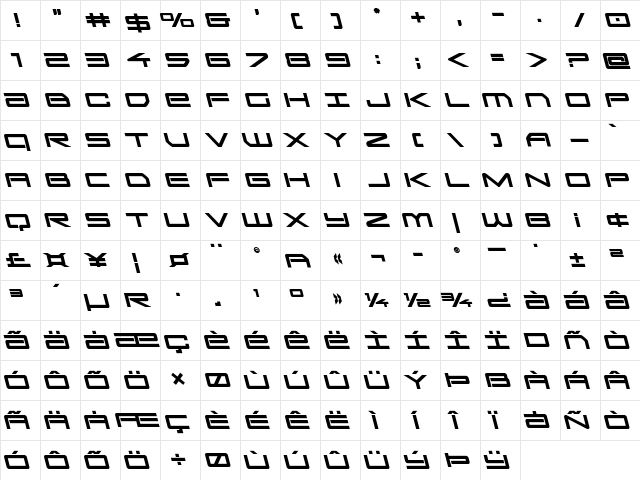
Sky Ridge Bold Leftalic Regular Font Preview
Design Context for Sky Ridge Bold Leftalic Typeface
Sky Ridge Bold Leftalic takes a measured approach to typography — its balanced proportions and neutral character make it a reliable workhorse for both digital and print work. Its italic angle brings a sense of urgency and motion to the letterforms. Its bold stroke weight gives it real presence on the page.
Pro Tip: Try Sky Ridge Bold Leftalic for annotation and caption copy alongside an upright companion — the contrast in angle creates a dynamic but ordered typographic system.